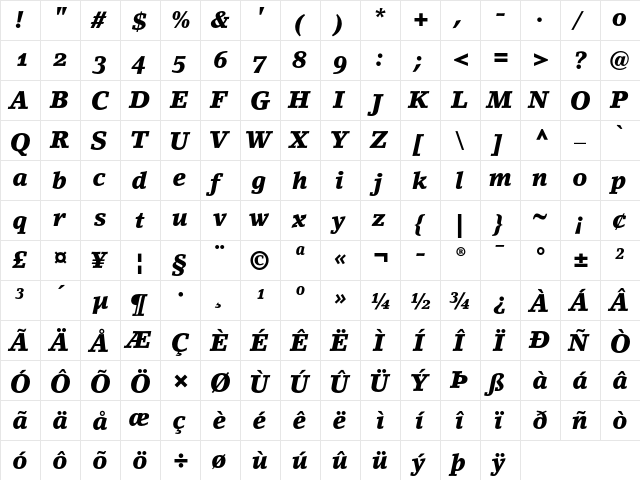
Lino Letter Black Italic OsF
Design Context for Lino Letter Typeface
Lino Letter offers clean, dependable letterforms without strong stylistic allegiance, making it a practical choice for designers who need flexibility. The dynamic lean of this cut emphasises speed and emphasis in any layout.
Pro Tip: Use Lino Letter for emphasis, pull quotes, and subheadings where its slanted energy can add rhythm to the layout.